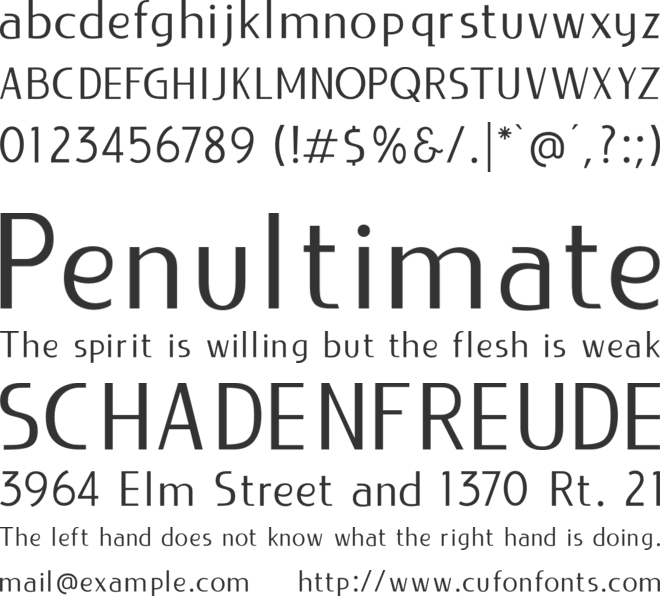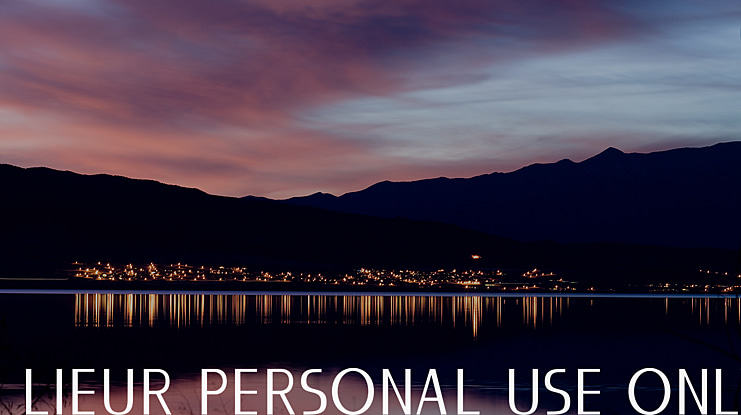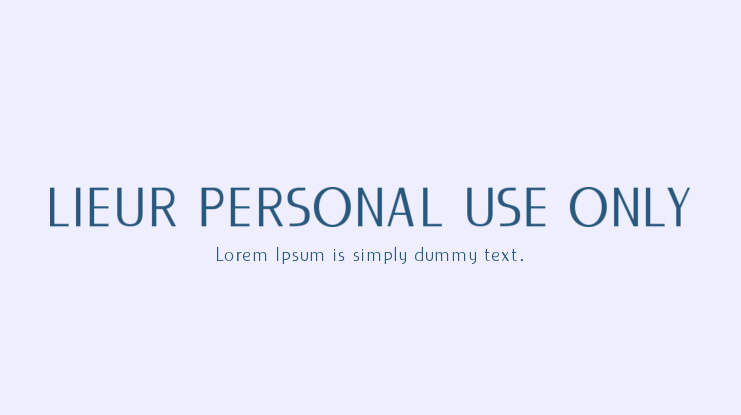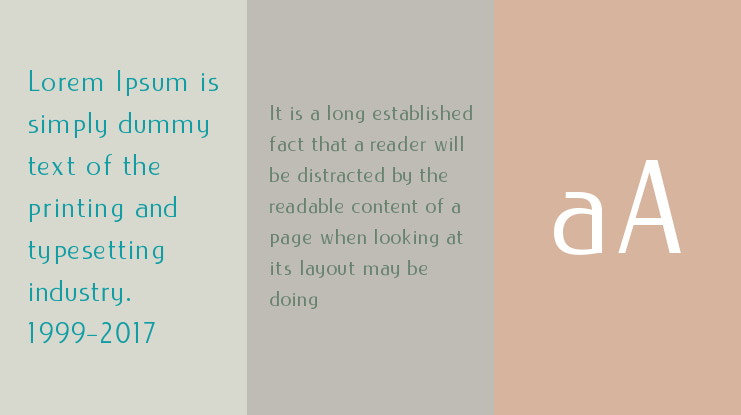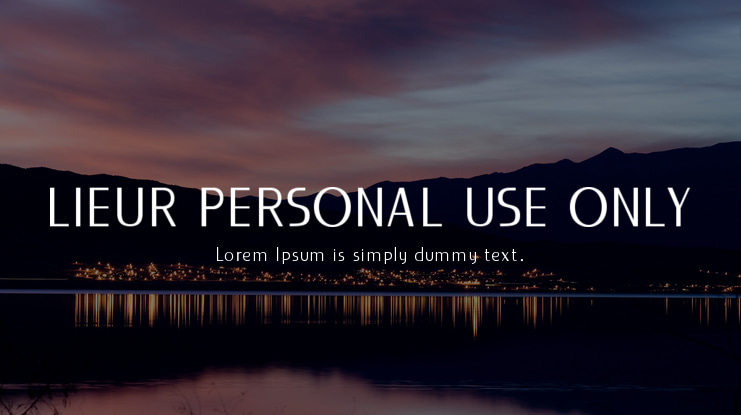
LIEUR PERSONAL USE ONLY Font Family
Andi Winarno-Inkstypia
Introduce the type of san serif font titled 'LIEUR', minimalist geometric style, suitable for logos, label designs, or even just plain body text. Comes with 2 types of styles; Normal and Italic, starting from Light-Regular-Medium-Bold-Black size gives you ease of writing with maintained harmonization.